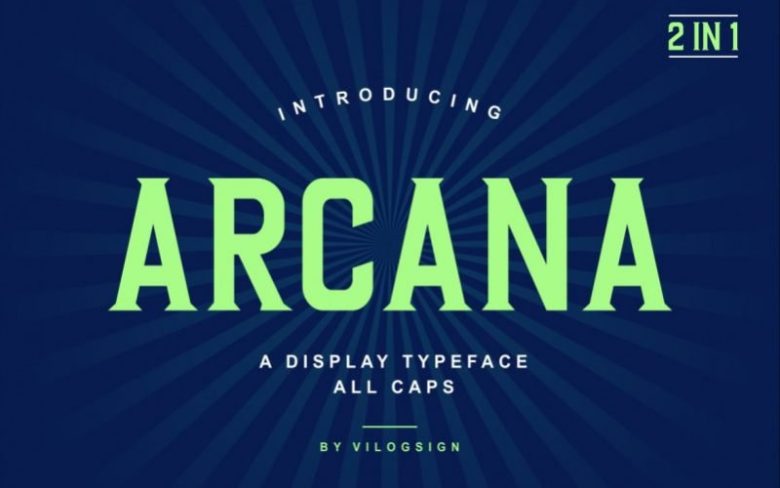
Arcana Display Font Free
Arcana is a strong display font. This all caps typeface will add a modern look to your designs. Use it for branding, t-shirt, magazine, fashion, quotes, logo, packaging, and more!